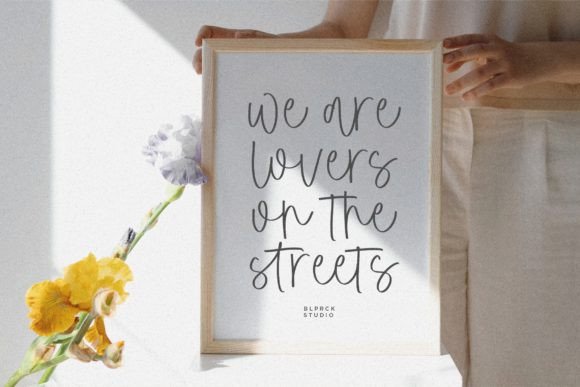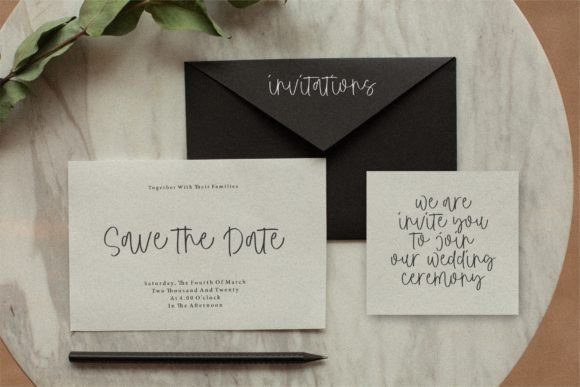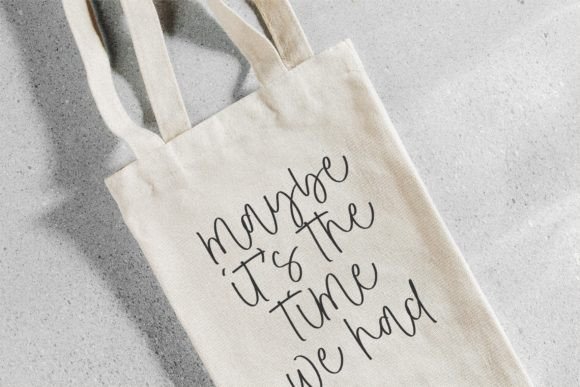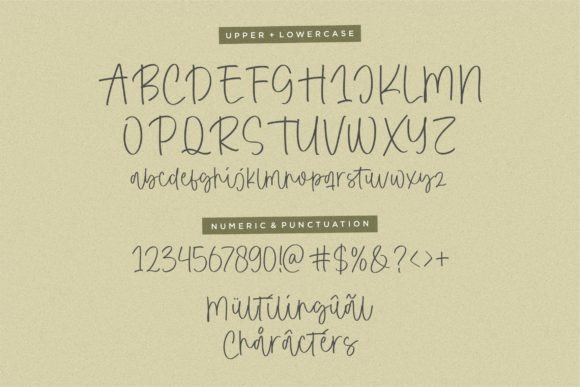
Introduction to Grand Bakaw Font
Do you remember that moment when you’re working on a creative project and you’re struggling to find the perfect font to match your vision? You scroll through countless options, but nothing seems to capture the essence of your design. That’s where the Grand Bakaw Font comes in – a game-changing, high-quality font that’s about to revolutionize your design process.
With its natural, organic feel and unique character, the Grand Bakaw Font is a design resource that’s sure to make a statement. Whether you’re working on a logo, branding, invitation, or any other creative project, this versatile font is the perfect addition to your design toolkit. And the best part? It’s available for a free download, so you can experiment with it risk-free and see the impact it can have on your designs.
Key Features of Grand Bakaw Font
- Unique, hand-drawn design perfect for creative projects requiring a personal touch.
- Perfect for designers, artists, and creatives looking for a unique and eye-catching font for their next project.
Honest Review: Grand Bakaw Font
I recently stumbled upon the Grand Bakaw Font and I must say it’s a lovely addition to my design resource library. With its transparent background, I found it to be incredibly versatile for creative projects.
- ✨ High quality: The font is crisp and clean, making it perfect for both digital and print materials.
- ✨ Unique style: The Grand Bakaw Font has a distinctive look that sets it apart from other fonts in my collection.
However, I did encounter a few limitations while using the font. For instance, ⚠️ the font doesn’t support bold or italic styles, which may be a drawback for some designers.
Overall, I’m impressed with the Grand Bakaw Font and would definitely recommend it to fellow designers looking for a high-quality, free design resource. Its unique style and transparent background make it a great addition to any creative project.
Tips for Getting the Most Out of Grand Bakaw Font
To get the most out of the Grand Bakaw Font, experiment with different font sizes, colors, and combinations to create unique and eye-catching designs. You can also use it in conjunction with other design resources to create a cohesive and high-quality visual identity.
Common Use Cases for Grand Bakaw Font
The Grand Bakaw Font is a versatile design resource that can be used in a variety of creative projects, including logos, branding materials, posters, and social media graphics. Its unique design and high-quality appearance make it an ideal choice for designers looking to add a touch of sophistication and elegance to their work.